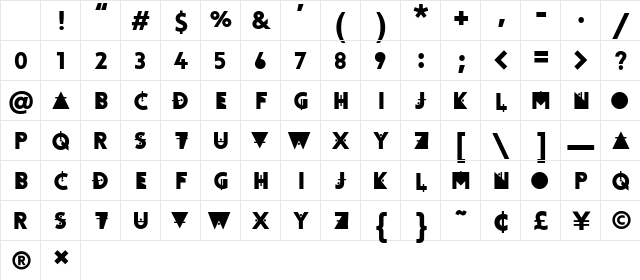
Complete Tourmaline Deconstructed 2 glyph index. Displaying only characters natively supported by Tourmaline Deconstructed 2 font.
Tourmaline is a composed and adaptable typeface that performs quietly and consistently across a wide range of design contexts.
Who designed the Tourmaline Deconstructed 2 font?
This font was published by Vincenzo Paolo Fraddosio. Check the technical specs section for copyright and designer details.